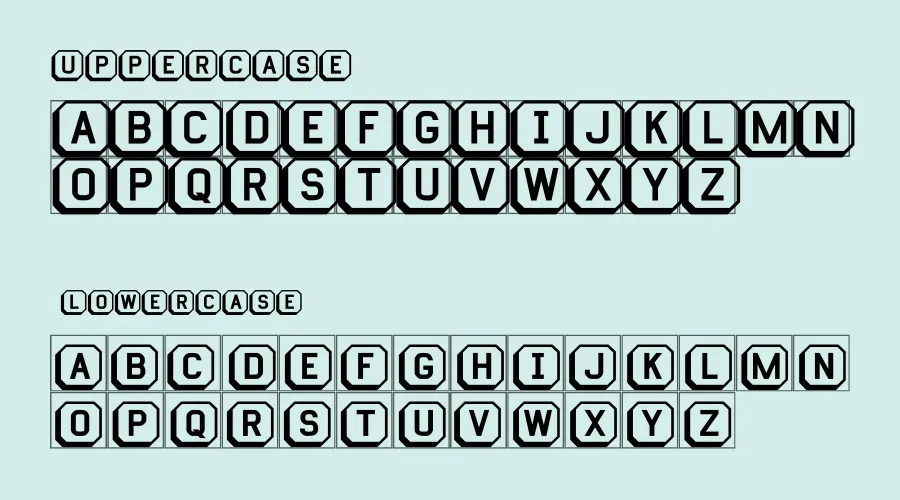
In this article, going to introduce to you a famous texture that is known as the name of Keyboard Bold Font. It has fantastic and various types of structures, that are perfect for all your stylish designs. You may easily get this wonderful typeface free from here and can utilize it on your both working systems Computer and Mac.
It contains various types of weights and styles such s bold, italic, and regular. You may combine this stunning typeface with welcome font and make fabulous creations. The online generator tool of the Keyboard bold texture will help you to convert all your traditional types of alphabet textures into stylish and modern styles.
This font gained popularity in a very short time due to its unique and gorgeous texture look appearance and also supports various international languages such as English, Arabic, Bangla/Bengali, Mandarin, Hindi, Spanish, and French.